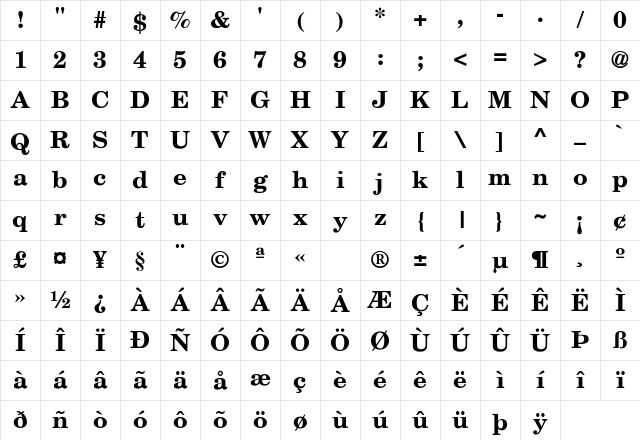
NewCenturySchlbk-Bold Regular
NewCenturySchlbk-Bold Family
NewCenturySchlbk-Bold Regular
Design Context for NewCenturySchlbk-Bold
NewCenturySchlbk-Bold is a composed and adaptable typeface that performs quietly and consistently across a wide range of design contexts. Its bold stroke weight gives it real presence on the page.